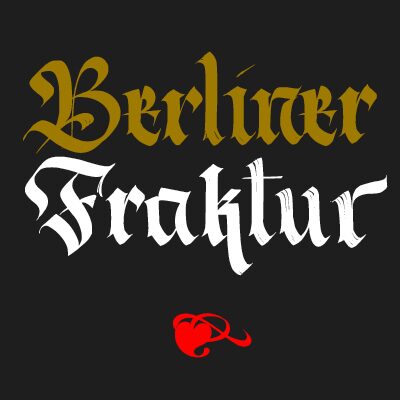
Berliner Fraktur font is composed by broken strokes, adding a handmade feeling to this geometric kind of calligraphy, Designed with a flat brush and inspired by the modern fraktur from Rudolf Koch. Berliner Fraktur font contains some interesting alternates and ligatures that make this type more real. The aim was to create a font that doesn’t look like a font.
Berliner Fraktur Font